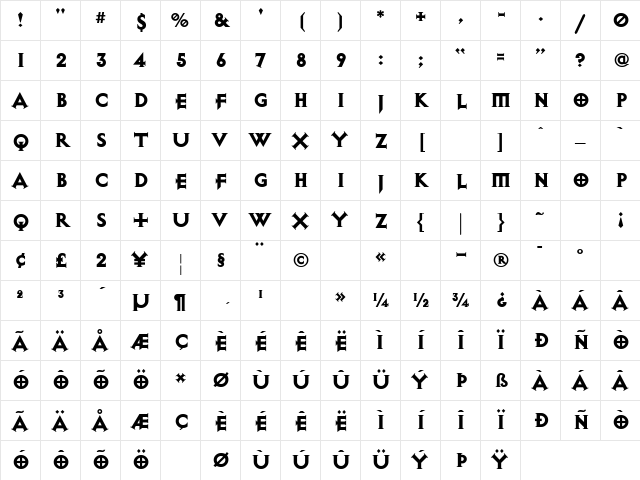
Diablo Heavy
Design Context for Diablo
Diablo is a composed and adaptable typeface that performs quietly and consistently across a wide range of design contexts.